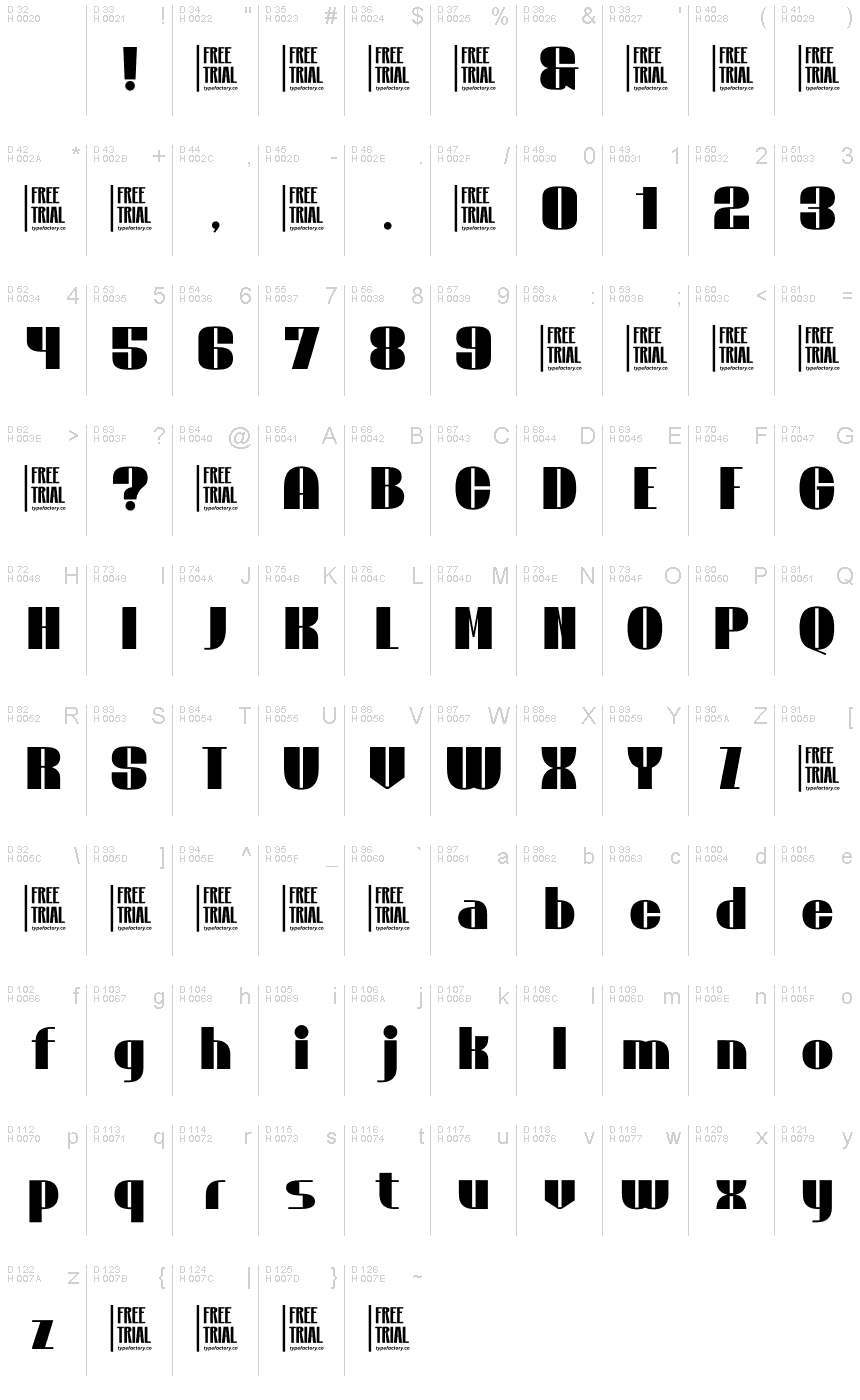
Grand Space Free Trial
Grand Space, crafted by Typefactoryco, stands as a testament to the fusion of retro charm and modern flair. This extra-bold display font captures the essence of cosmic wonder and interstellar exploration, making it an ideal choice for projects that aim to evoke grandeur and adventure. With its assertive lines and impactful presence, Grand Space serves as a perfect anchor for titles in video games, promotional materials for sci-fi films, or branding that seeks to make a powerful statement.
The retro style of Grand Space harks back to the golden age of space exploration while remaining grounded in contemporary design aesthetics. Its boldness is not merely visual but also conceptual, providing designers with a versatile tool that can be used across various creative landscapes. Whether it's for galactic-themed events or cutting-edge tech startups looking to stand out, Grand Space offers an aesthetic appeal that is both nostalgic and boldly forward-thinking.